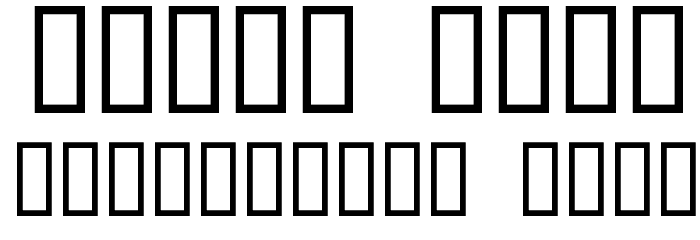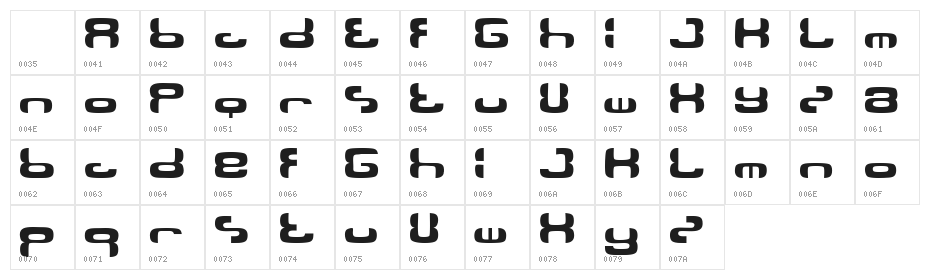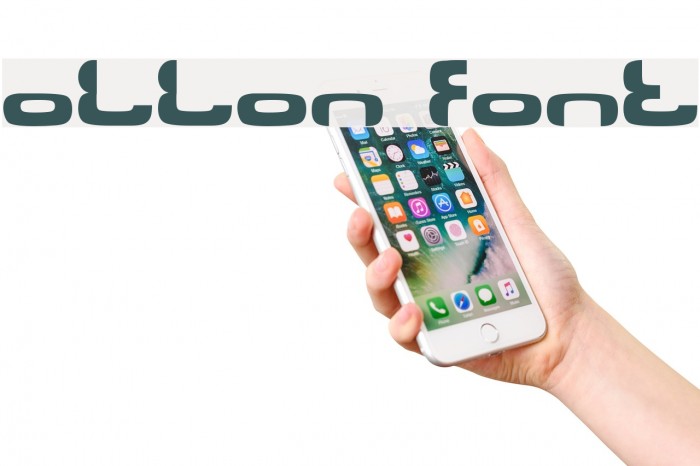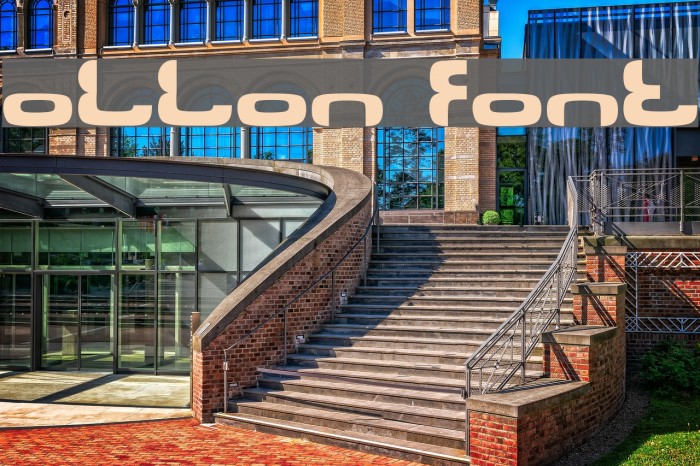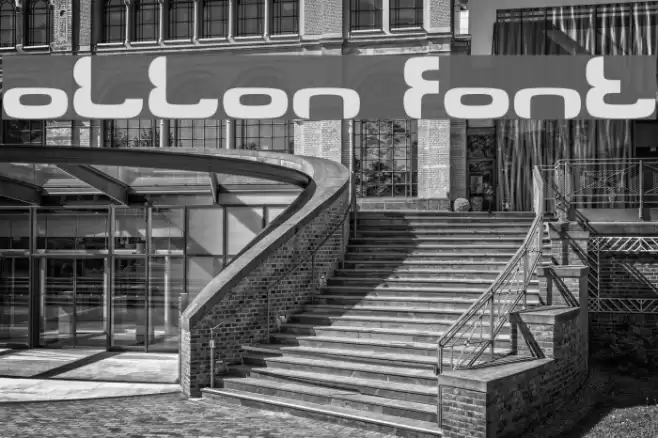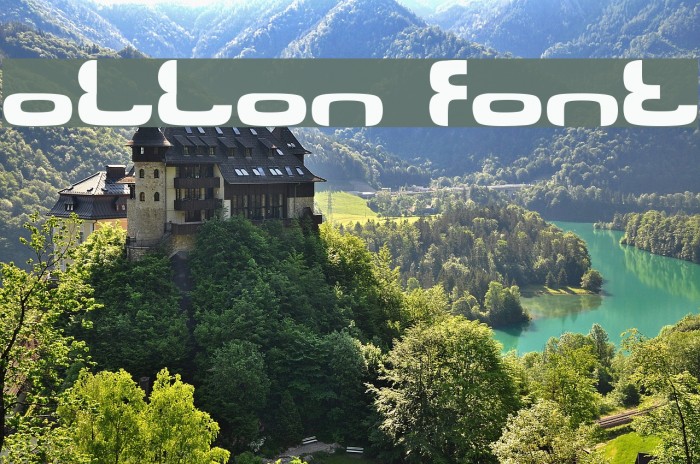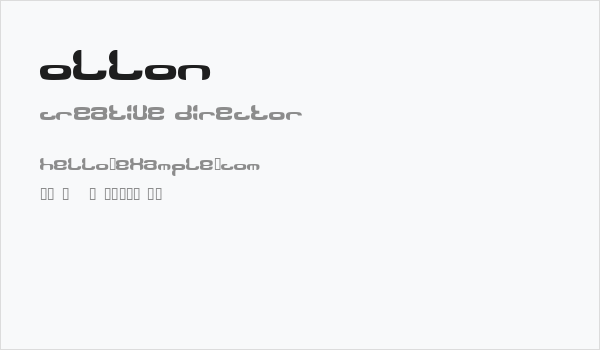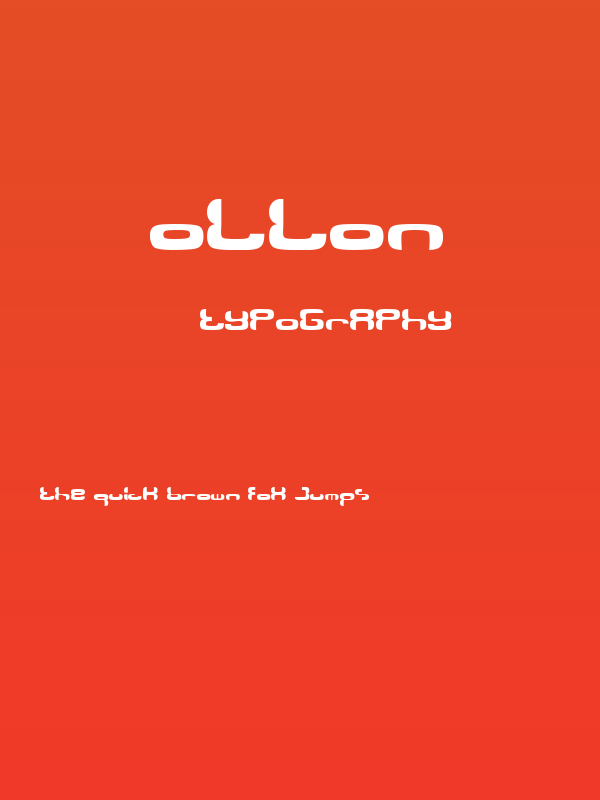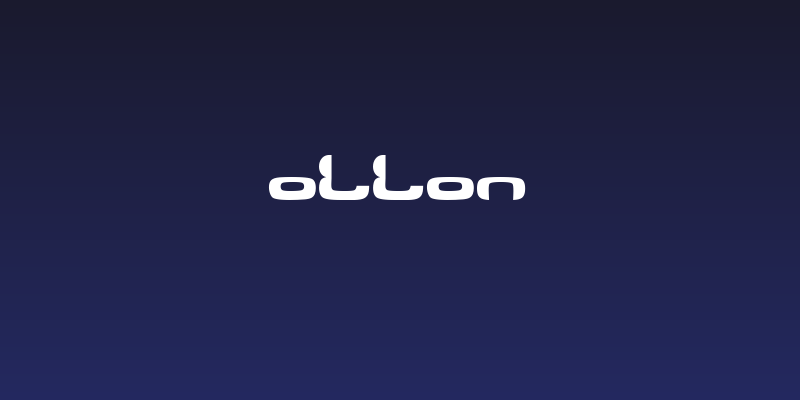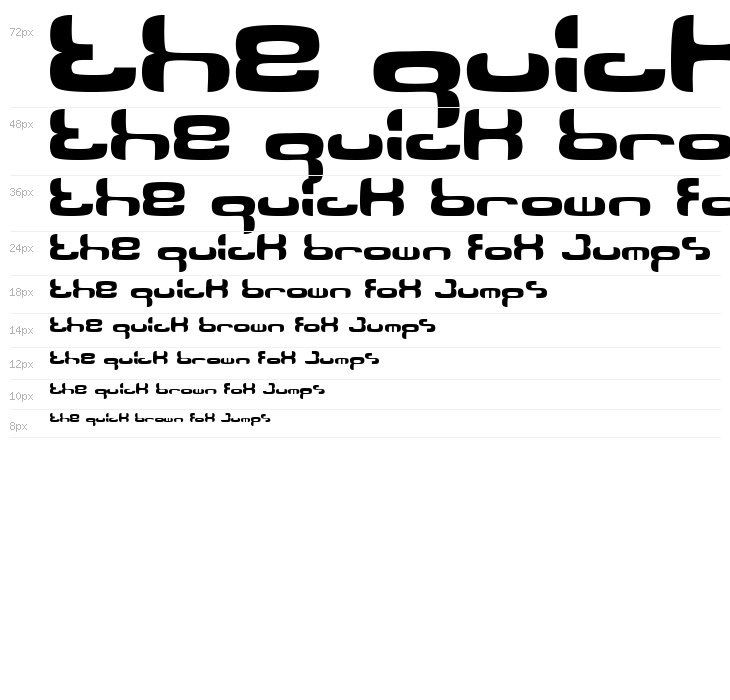
Ollon Font
Ollon Description
This font features a unique, futuristic design with bold, rounded shapes and a distinct geometric style. The characters are crafted with a consistent thickness, giving them a solid and substantial appearance. The uppercase and lowercase letters share a similar structure, enhancing the uniformity of the typeface. The numbers and special characters maintain the same bold and rounded aesthetic, ensuring a cohesive look across all elements. The font's modern and innovative design makes it stand out, with a playful yet sophisticated vibe that can capture attention in various contexts.
| Proposed Projects | Ideal for tech branding, sci-fi themed projects, modern posters, and innovative product packaging. |